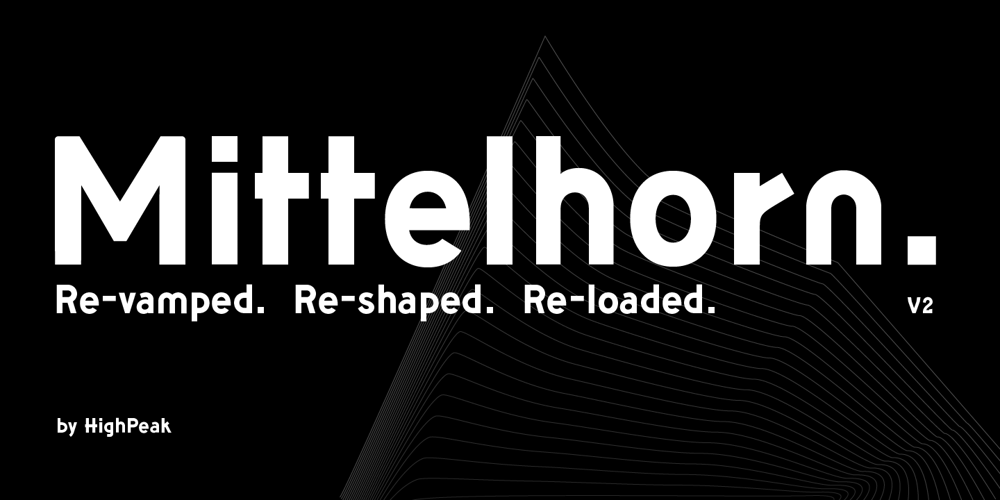
Mittelhorn Font Family was designed by Francesco Franciosi and published by High Peak. Mittelhorn contains 6 styles and family package options. Mittelhorn is a clean, readable, distinctive neo-grotesque. Use it for logotypes, web, signage, or editiorial design. Make a statement and choose one of the alternate sick glyphs… Main features: The family comes in three weights and matching italicsReinterpreted numbers and punctuation Comprehensive character sets for Western and Central European languageSelected alternate uppercase sick glyphs for extra characterEach glyph in this family was crafted with intention and care. It is a creative yet versatile and very readable font that you can easily use on a range of applications – headlines, billboards, signage, web copy, editorial, publishing… Most of all, have fun with it!